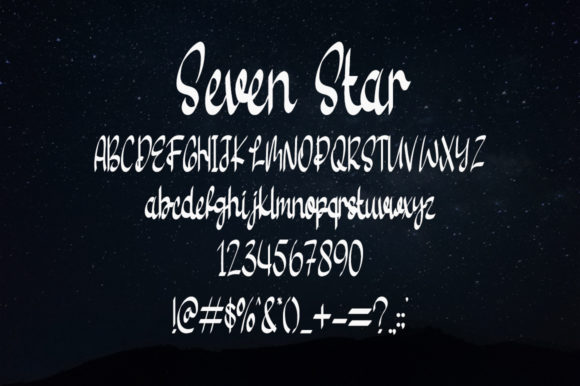
Getting Creative with the Perfect Font
As designers, we’ve all been there – staring at a blank canvas, struggling to find the right words to express our vision. But what if the perfect font could be just a click away? For many creative projects, the right font can make all the difference in bringing a design to life. And that’s exactly what the
Seven Star Font
offers – a sweet and friendly handwritten font that’s perfect for a wide range of designs.
Whether you’re working on a personal project or a commercial design, the Seven Star Font is a valuable resource that can add a touch of warmth and personality to your work. Its natural and unique style makes it incredibly versatile, and the fact that it’s available for free download makes it an even more enticing option for designers on a budget.
Key Features of Seven Star Font
- High-quality font design, suitable for various creative projects
- Large character set with over 500 glyphs, covering a wide range of languages and characters
- Unique, modern design aesthetic that can add a touch of sophistication to any creative project
Honest Review: Seven Star Font
I recently stumbled upon the Seven Star Font, and I must say, it’s been a game-changer for my creative projects. This high-quality font has become a staple in my design resource library.
What works well: ✨ The Seven Star Font comes in a variety of styles, making it perfect for a range of creative projects. The transparent background option allows for seamless integration with any design. The font is also highly customizable, making it easy to adapt to different design needs.
- Perfect for logos, branding, and marketing materials
- Comes in various styles, including script and sans-serif
- Transparent background option for easy design integration
Overall, the Seven Star Font is a solid choice for designers looking for a high-quality, versatile font. While it may have some limitations, the benefits far outweigh the drawbacks.
Tips for Getting the Most Out of Seven Star Font
Use a transparent background to create a seamless design. Experiment with different font sizes and colors to achieve the desired visual effect. Combine the Seven Star Font with other design elements, such as graphics and images, to create a unique and engaging design.
The Seven Star Font is ideal for various creative projects, including social media graphics, presentations, infographics, and blog posts. Its high-quality design and versatility make it a great addition to any design resource collection.